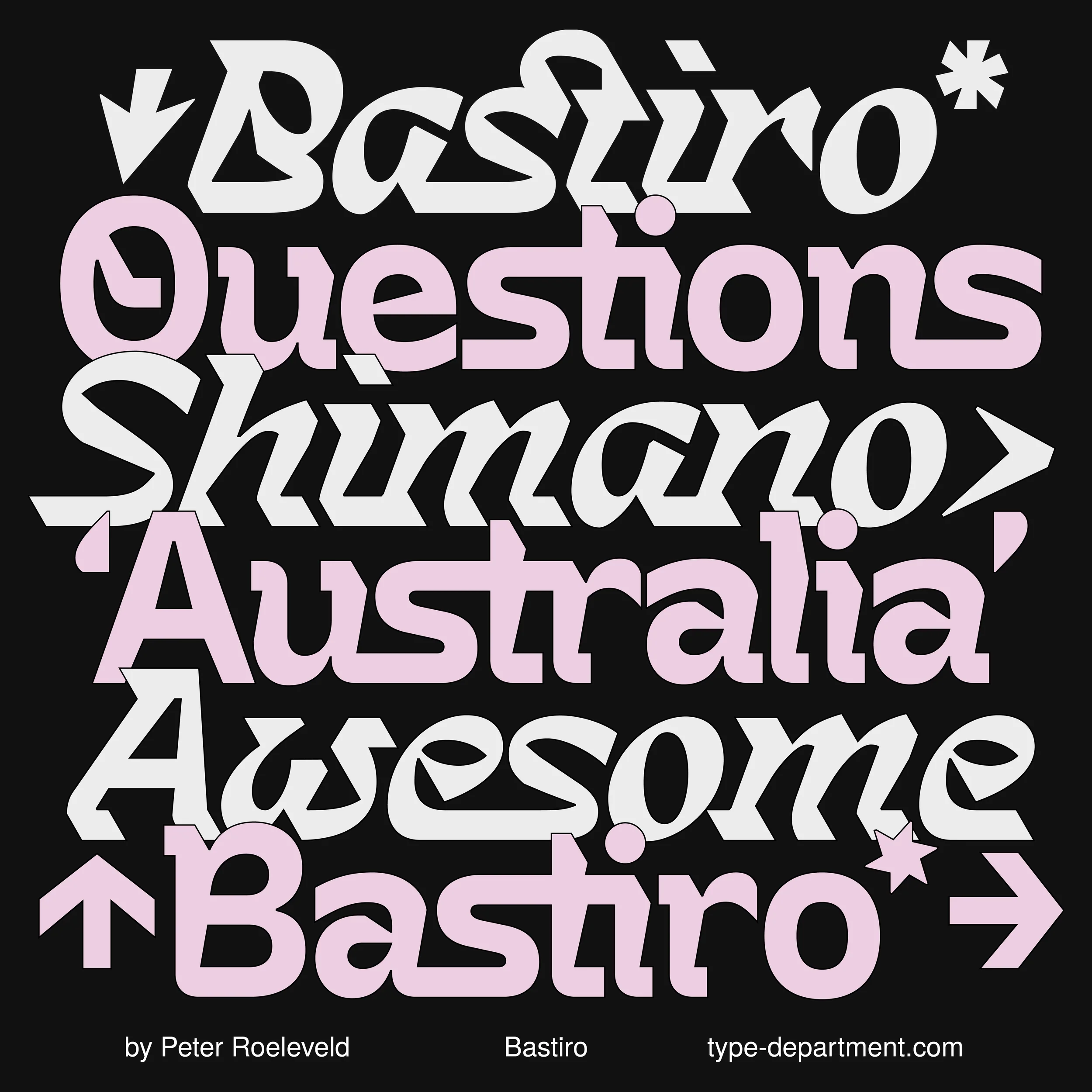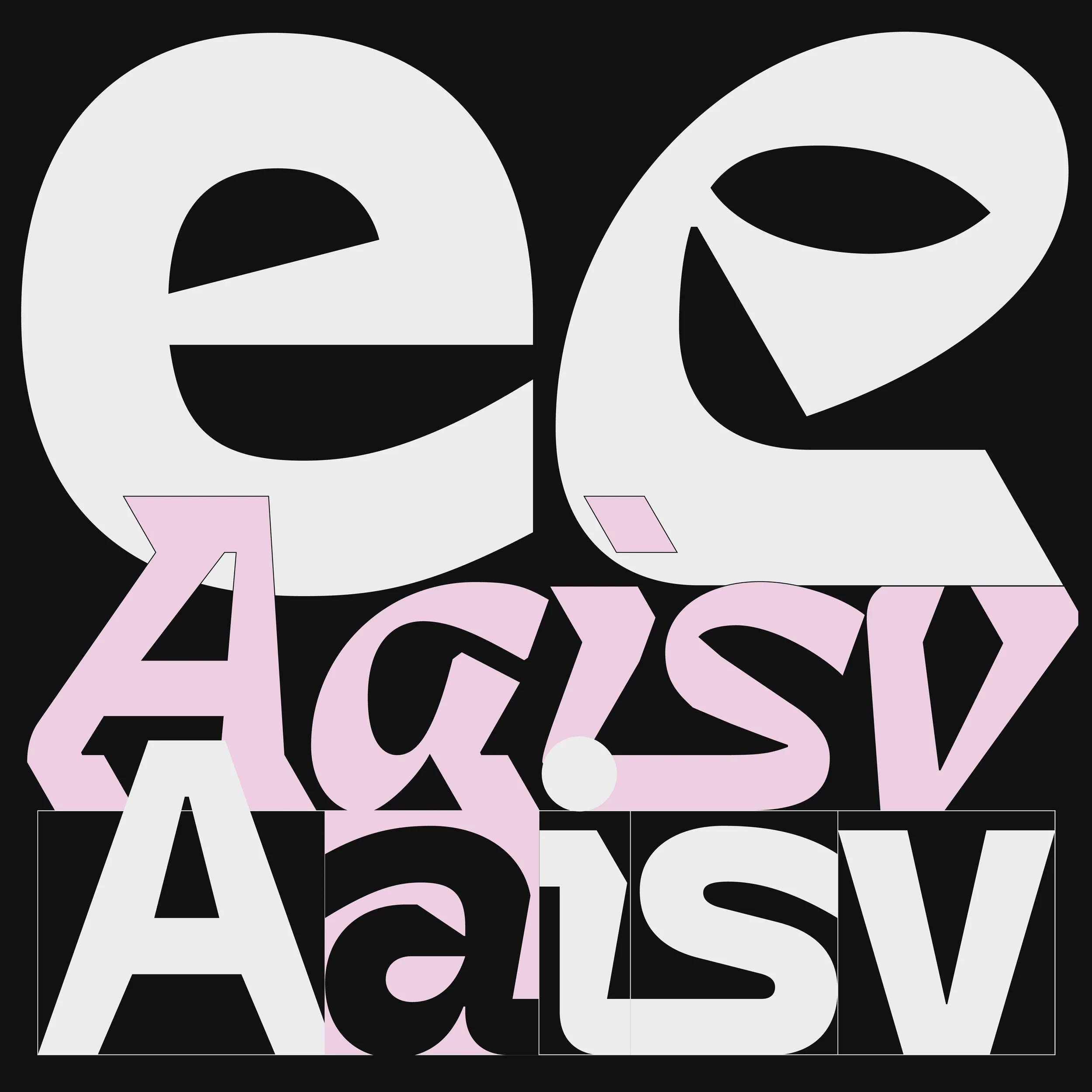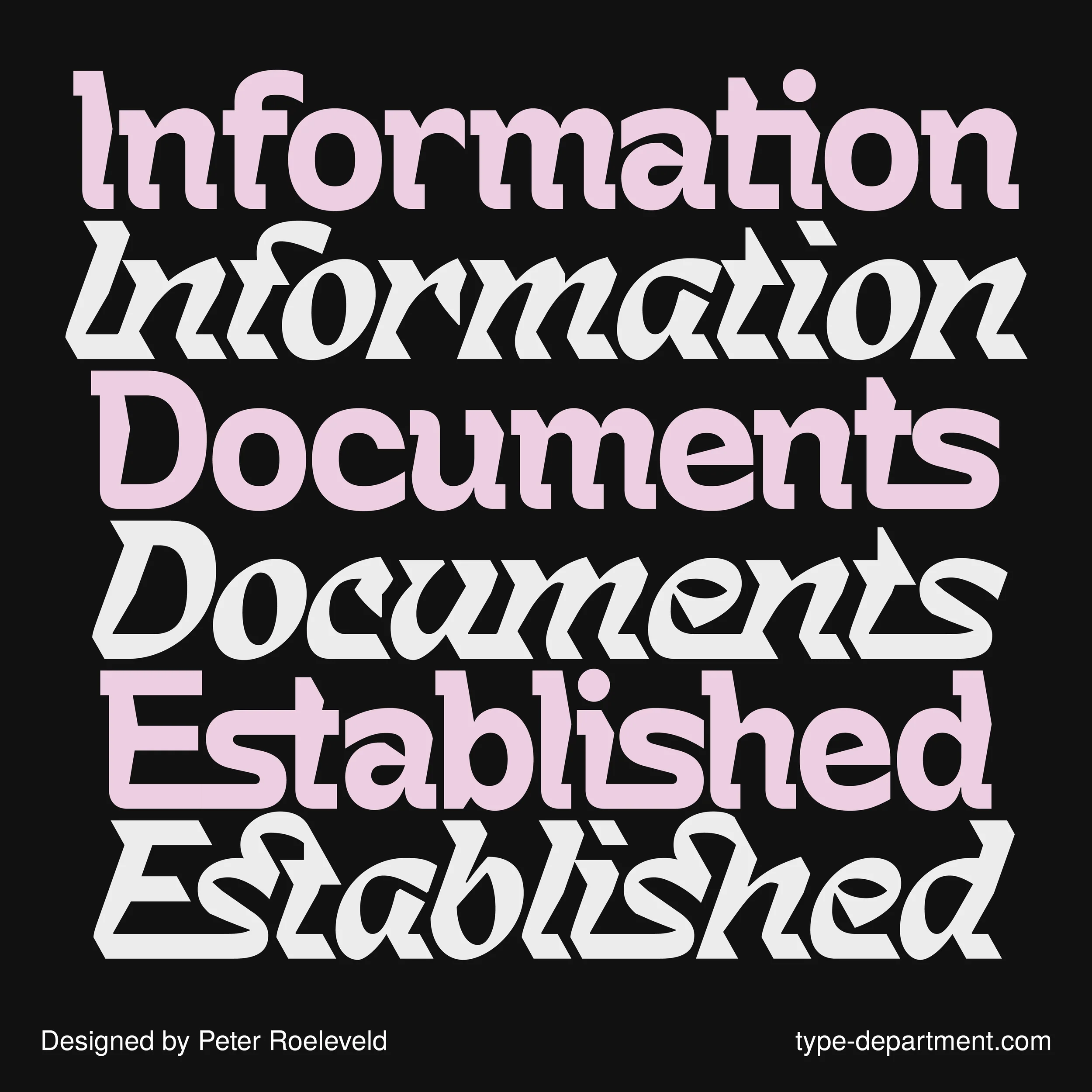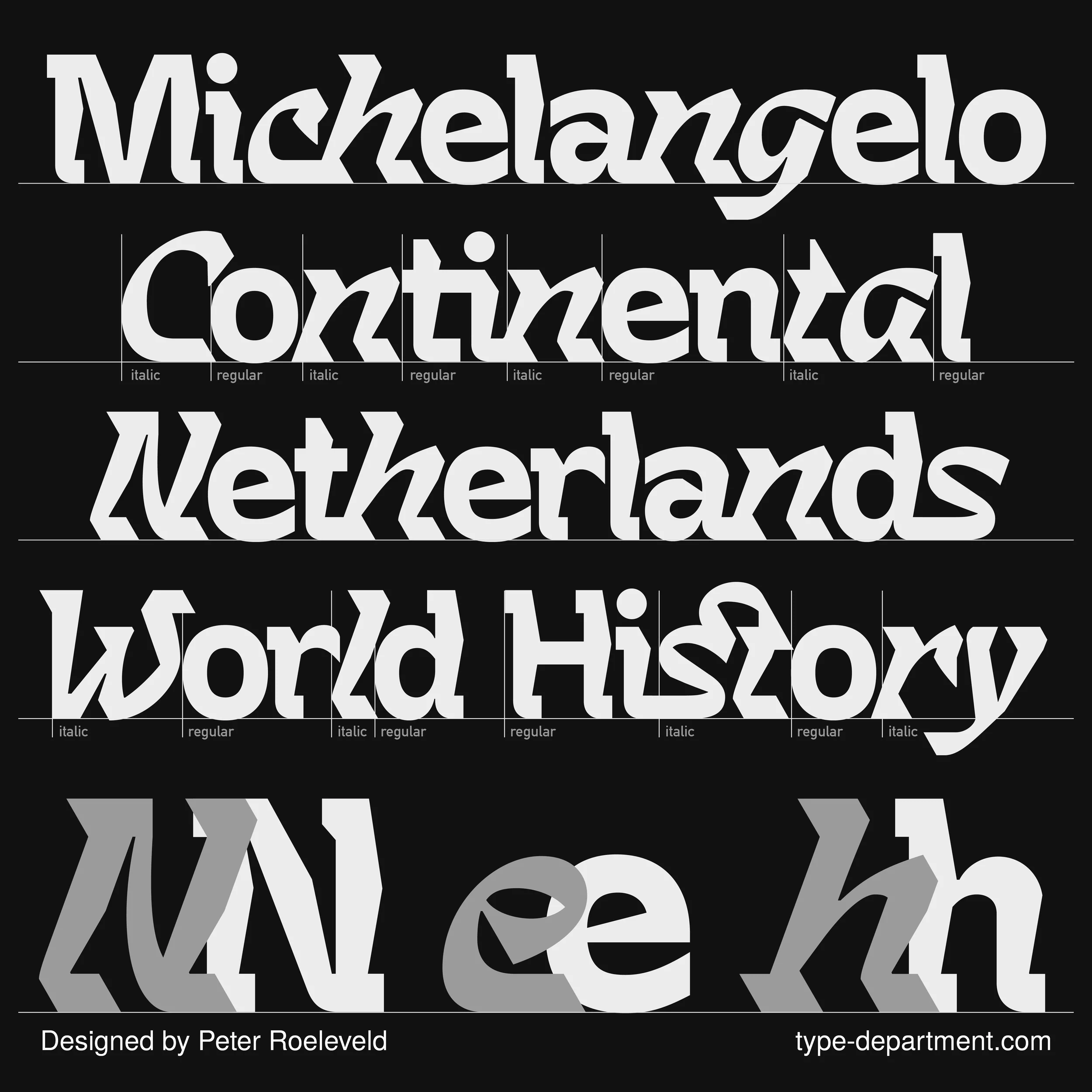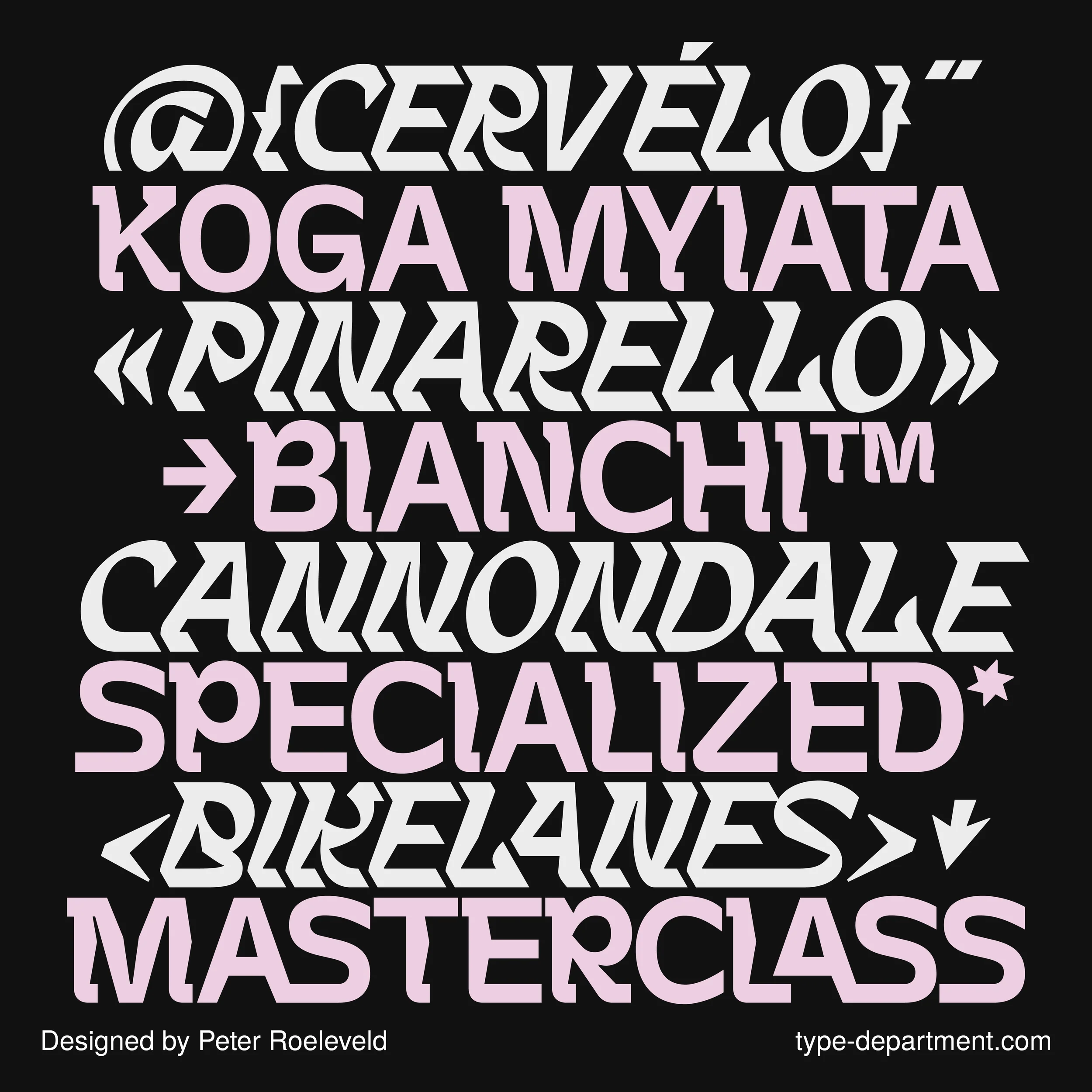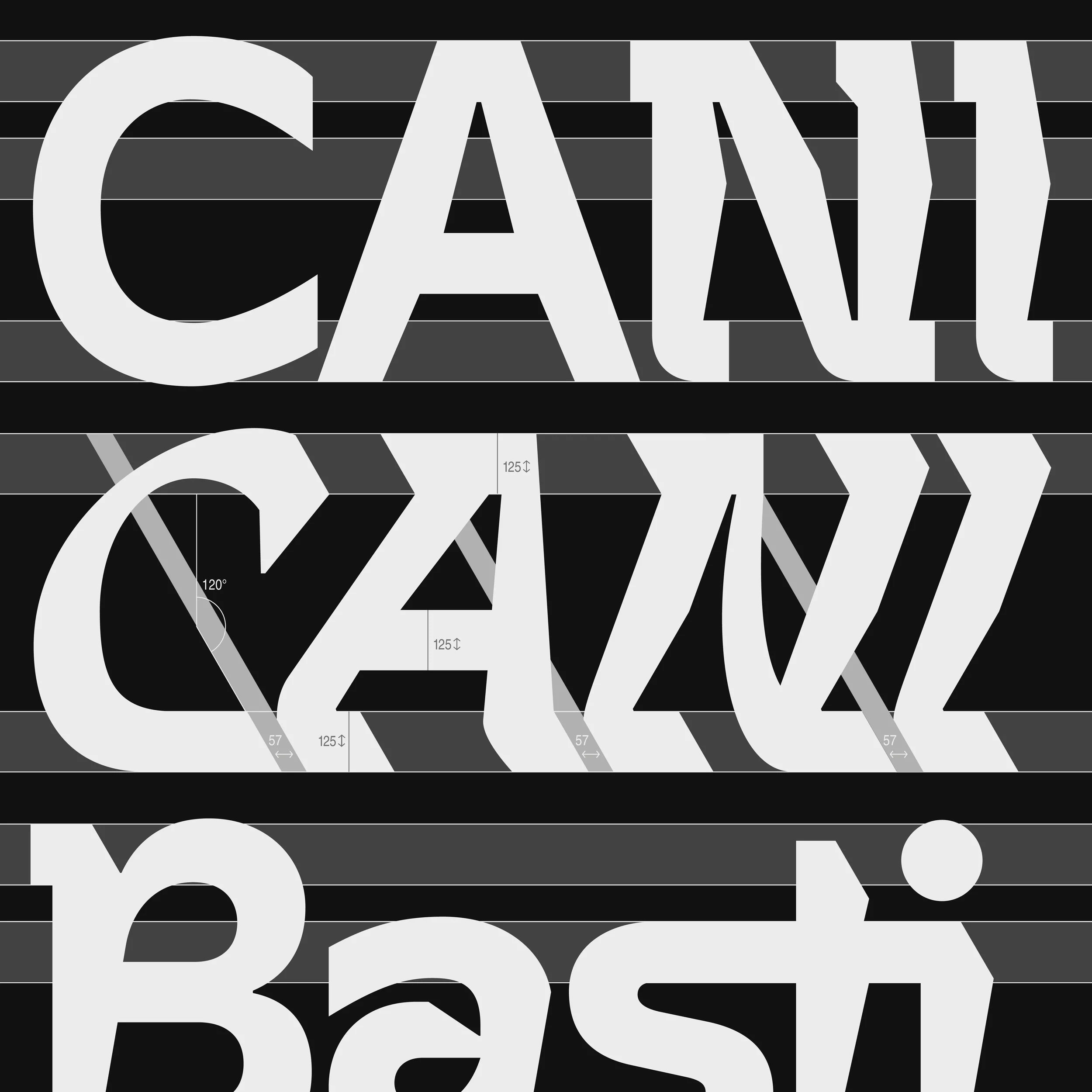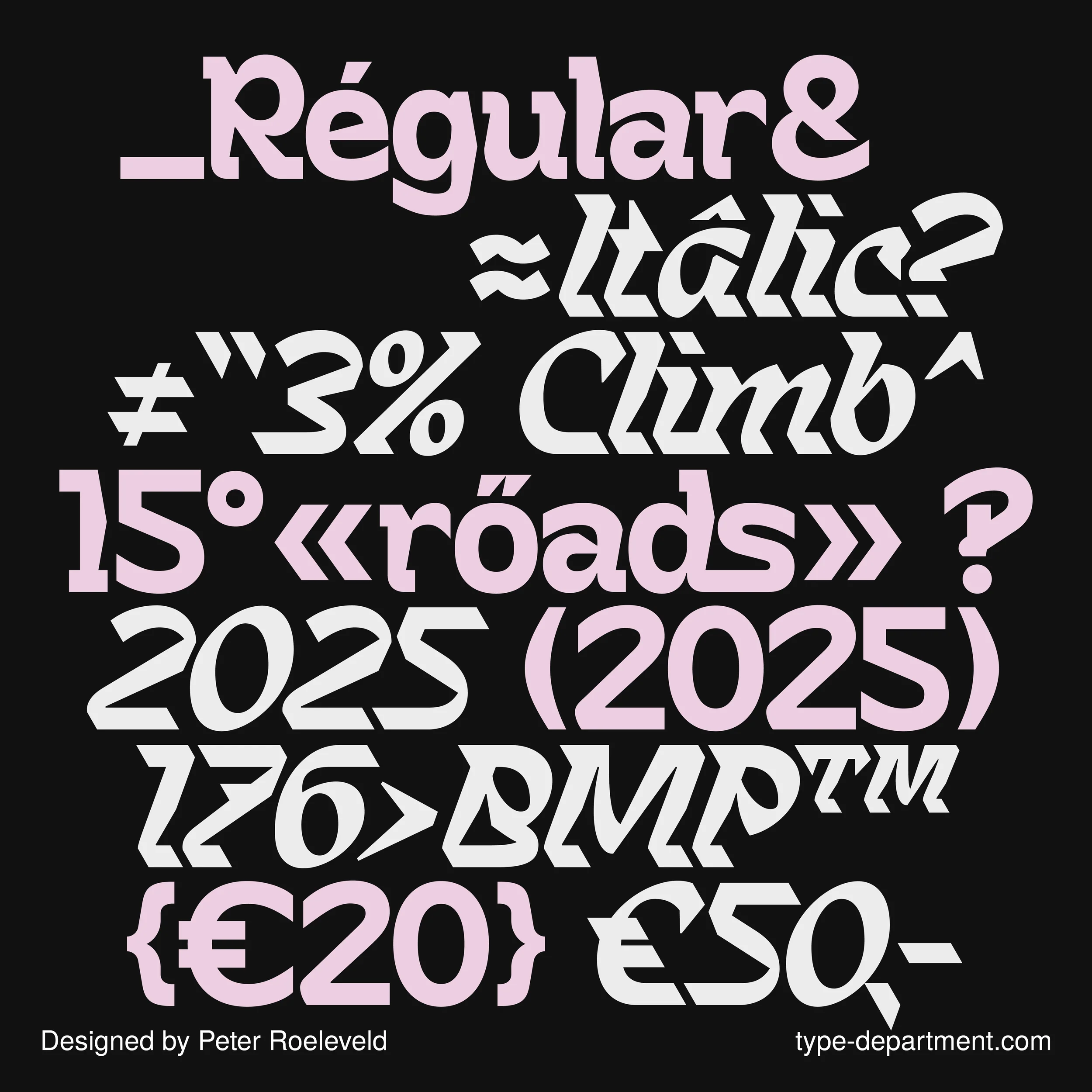
Bastiro
Bastiro is a vibrant type family engineered for motion. Designed in two variants, Regular and Italic, it strikes a balance between strength and velocity, and structure and edge. Built on shared bar heights. Both styles connect through a precise visual system, allowing select glyphs to align and interact when combined—two distinct personalities, one design language.
Bastiro Regular provides the family with a solid, grounded foundation. Its confident geometry and stable rhythm give it a strong visual presence, whilst Bastiro Italic is not a traditional slanted companion; it is a complete redesign. Angular and precision-cut, it carries a sense of forward motion and aerodynamic tension. Inspired by the clean geometry of Stanley blades, its sharp forms and aggressive posture make it feel constantly on the move even at rest.
Bastiro is a vibrant type family engineered for motion. Designed in two variants, Regular and Italic, it strikes a balance between strength and velocity, and structure and edge. Built on shared bar heights. Both styles connect through a precise visual system, allowing select glyphs to align and interact when combined—two distinct personalities, one design language.
Bastiro Regular provides the family with a solid, grounded foundation. Its confident geometry and stable rhythm give it a strong visual presence, whilst Bastiro Italic is not a traditional slanted companion; it is a complete redesign. Angular and precision-cut, it carries a sense of forward motion and aerodynamic tension. Inspired by the clean geometry of Stanley blades, its sharp forms and aggressive posture make it feel constantly on the move even at rest.